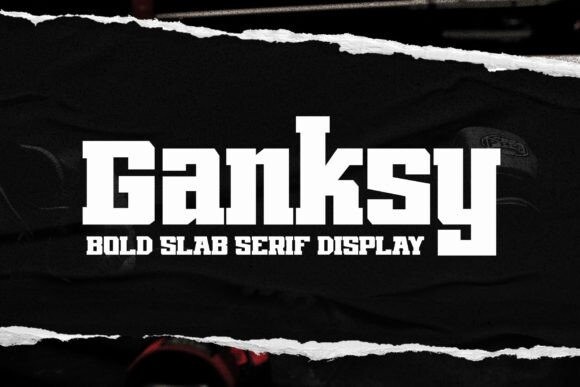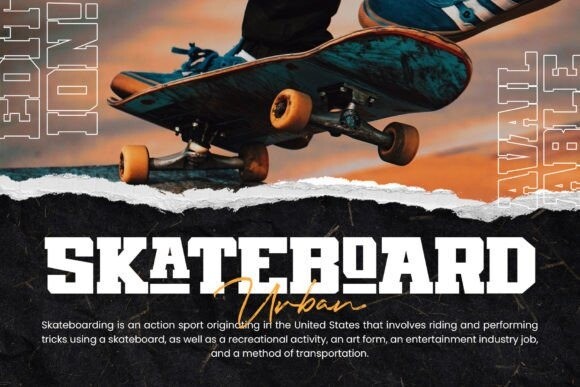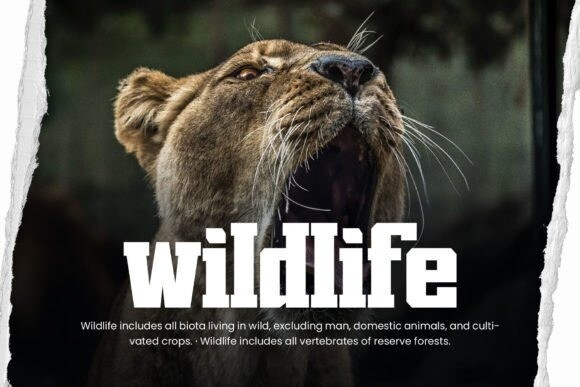
Ganksy Font
Ganksy Font is a strong slab serif font, created with high attention to the modern letterform which looks perfect for display. It is suitable for various themes such as sports, animals, techno, youth, lifestyle and much more!